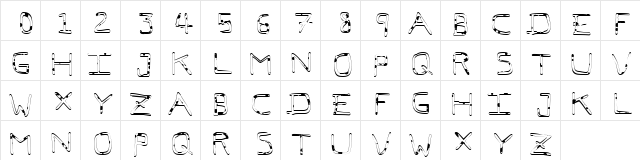
Pfvvbf7 liquid verybadfont7
Design Context for Pfvvbf7 liquid Typeface
Pfvvbf7 liquid is a composed and adaptable typeface that performs quietly and consistently across a wide range of design contexts.